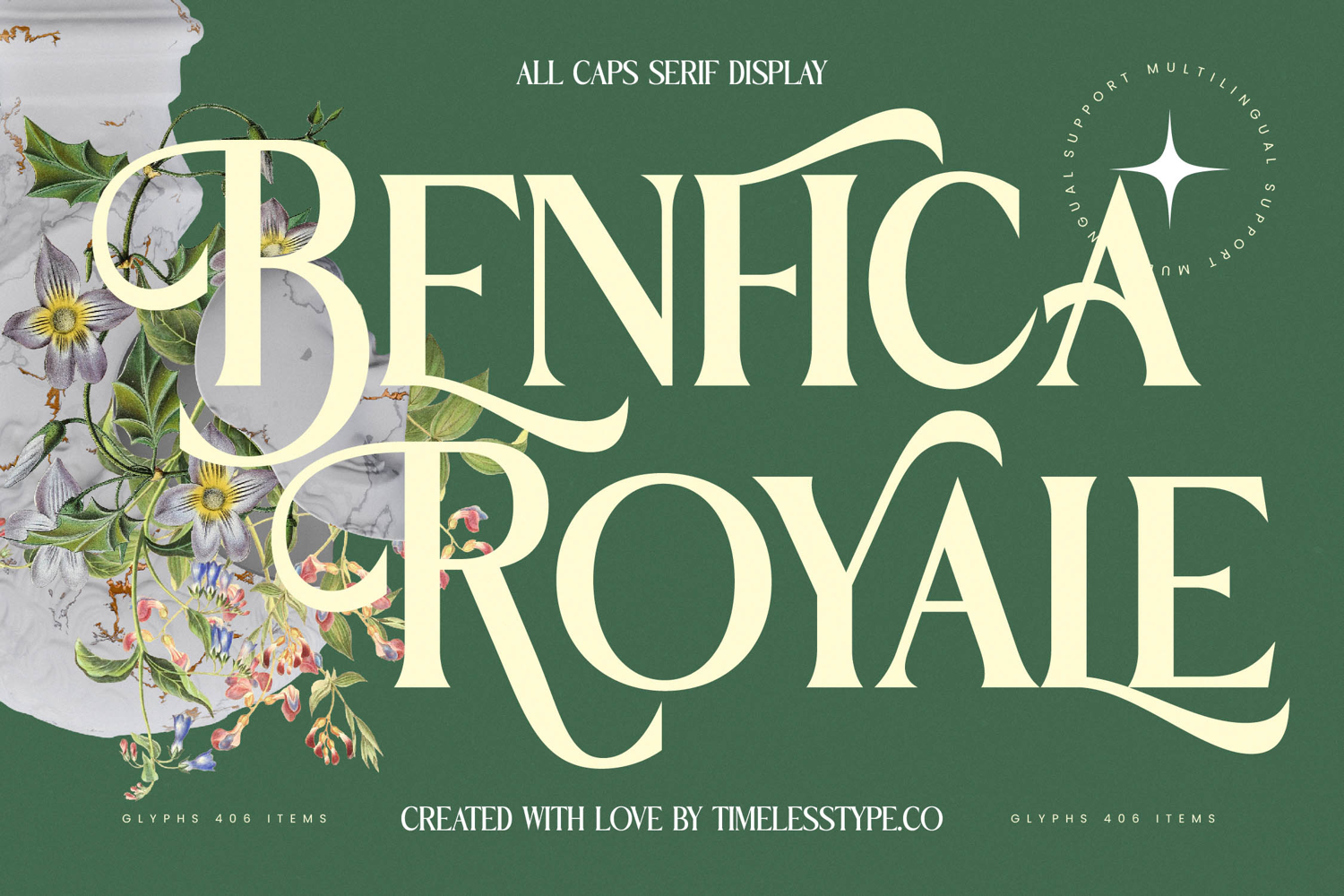
Benfica Royale - All Caps Serif Display
Redefine visual opulence with striking typographic presence. The Benfica Royale - All Caps Serif Display is a masterpiece of vintage elegance, engineered specifically for maximum impact at large sizes. Its defining characteristic is the dramatic high-contrast between thick serifs and delicate hairlines, immediately communicating premium quality and classic sophistication. This font’s unapologetic style demands attention, ensuring your titles and headlines are instantly unforgettable, serving as a powerful tool in high-stakes visual communication.
Elevate your design narrative with bespoke refinement. Optimized as an All Caps Serif Display, Benfica Royale - All Caps Serif Display offers exceptional visual rhythm. The elegant curves and sophisticated terminals lend themselves beautifully to bespoke logotype creation and detailed editorial layouts. This typeface is not just a font; it is a meticulously crafted statement tool, perfect for projects requiring a touch of historical gravitas blended with refined, contemporary flair.
Conquer international markets with seamless linguistic versatility. A crucial feature for modern global branding, Benfica Royale - All Caps Serif Display is built for worldwide deployment. With its extensive multilingual support, Benfica Royale - All Caps Serif Display adapts seamlessly across global markets, making it incredibly versatile for international projects. This inherent robustness ensures your brand maintains its luxurious aesthetic consistency regardless of the language or region.
Secure your position in the elite design echelon today. Benfica Royale - All Caps Serif Display is perfectly suited for luxury branding, high-end packaging design, formal invitations, fashion editorials, and opulent magazine headlines. It provides the ideal foundation for creating distinctive brand identities that resonate with history, authority, and uncompromising style. Invest in this display typeface to ensure your visual assets convey unparalleled premium value and heritage.